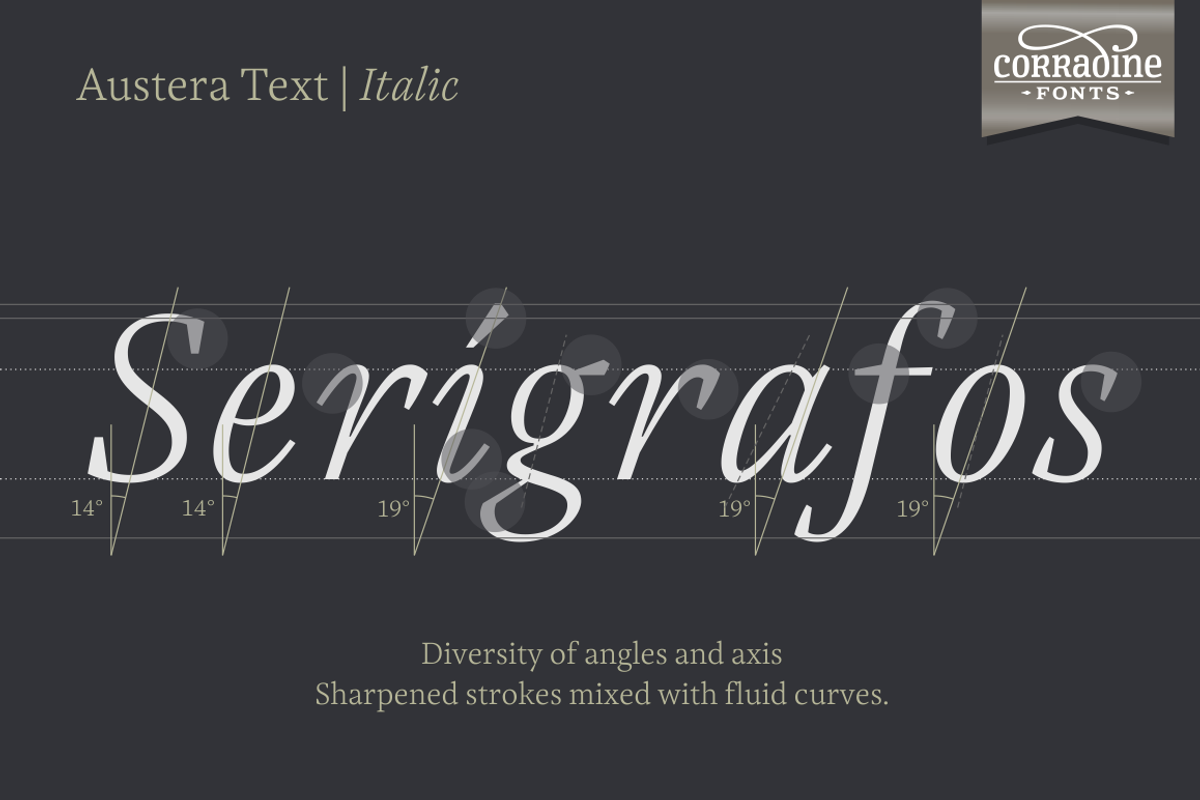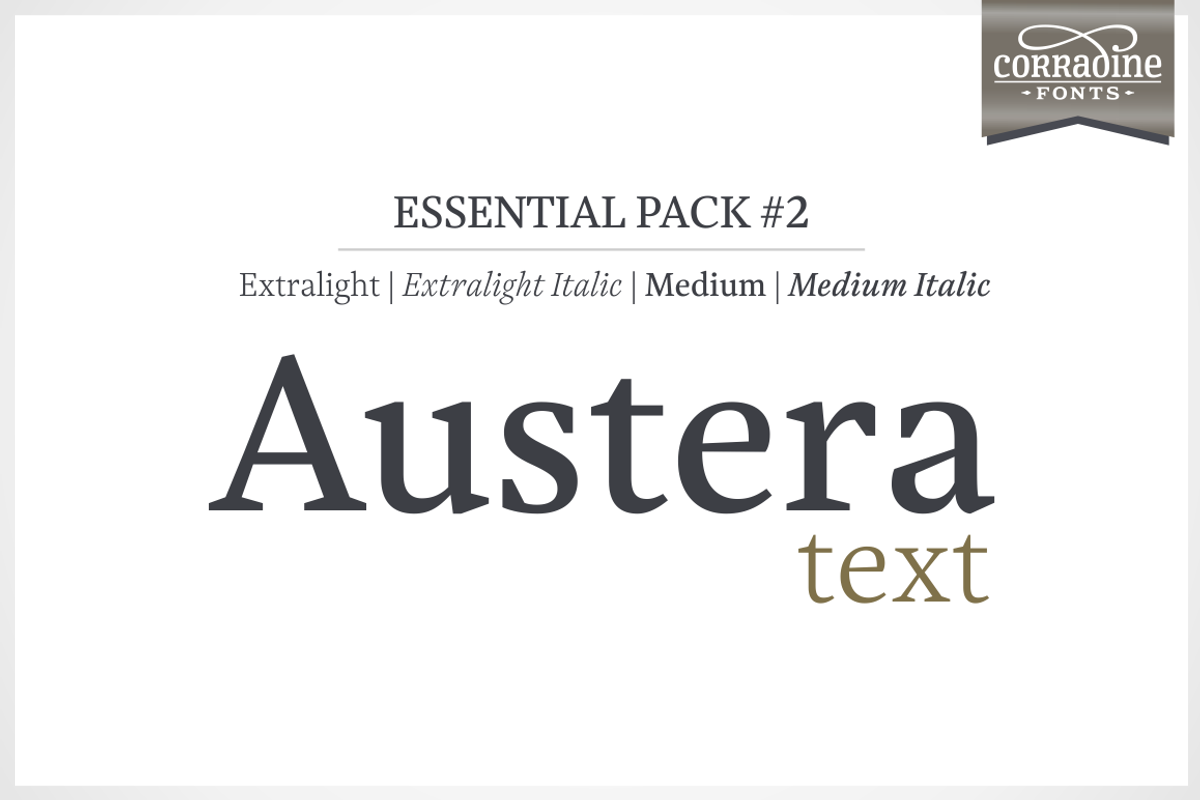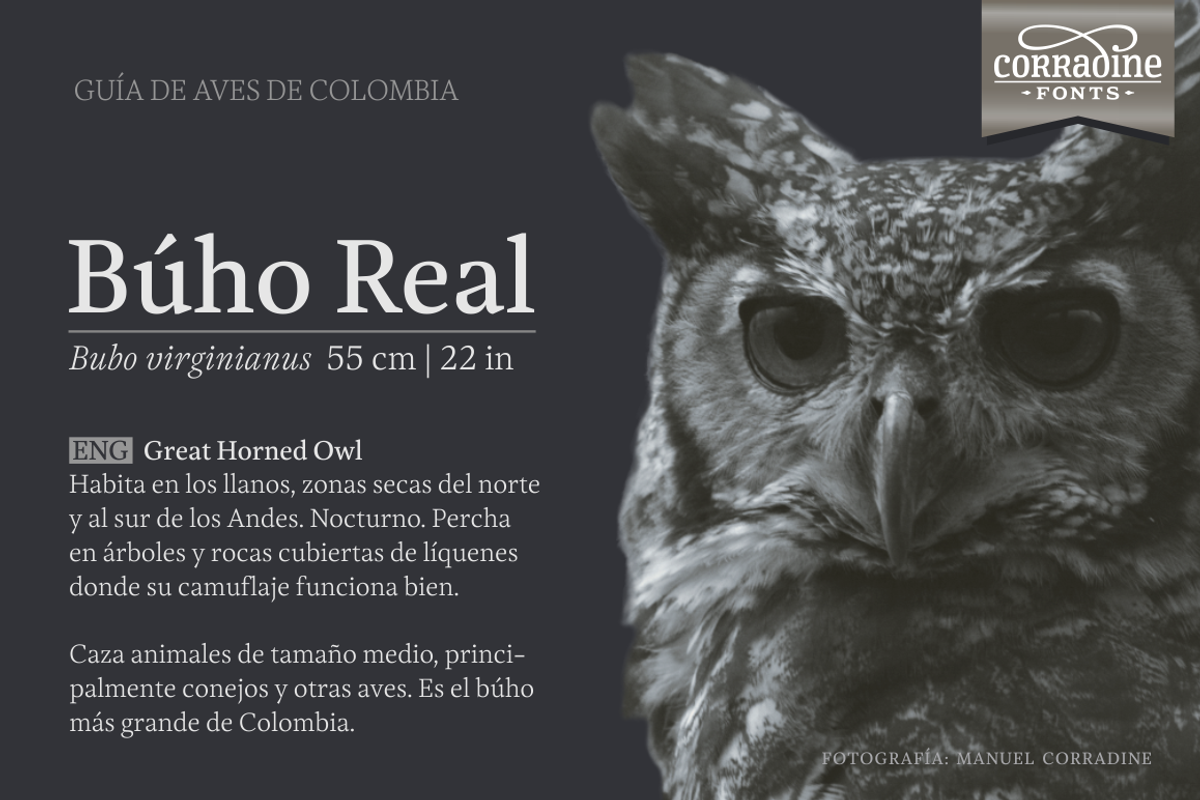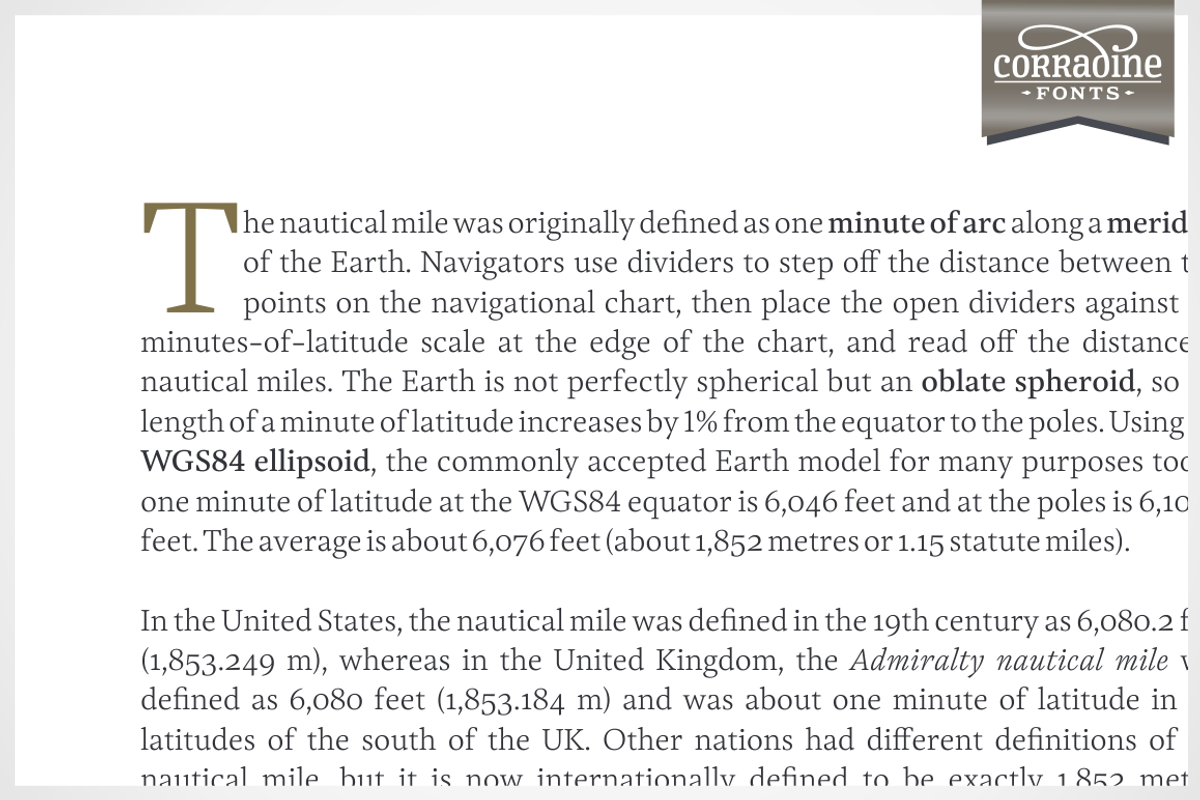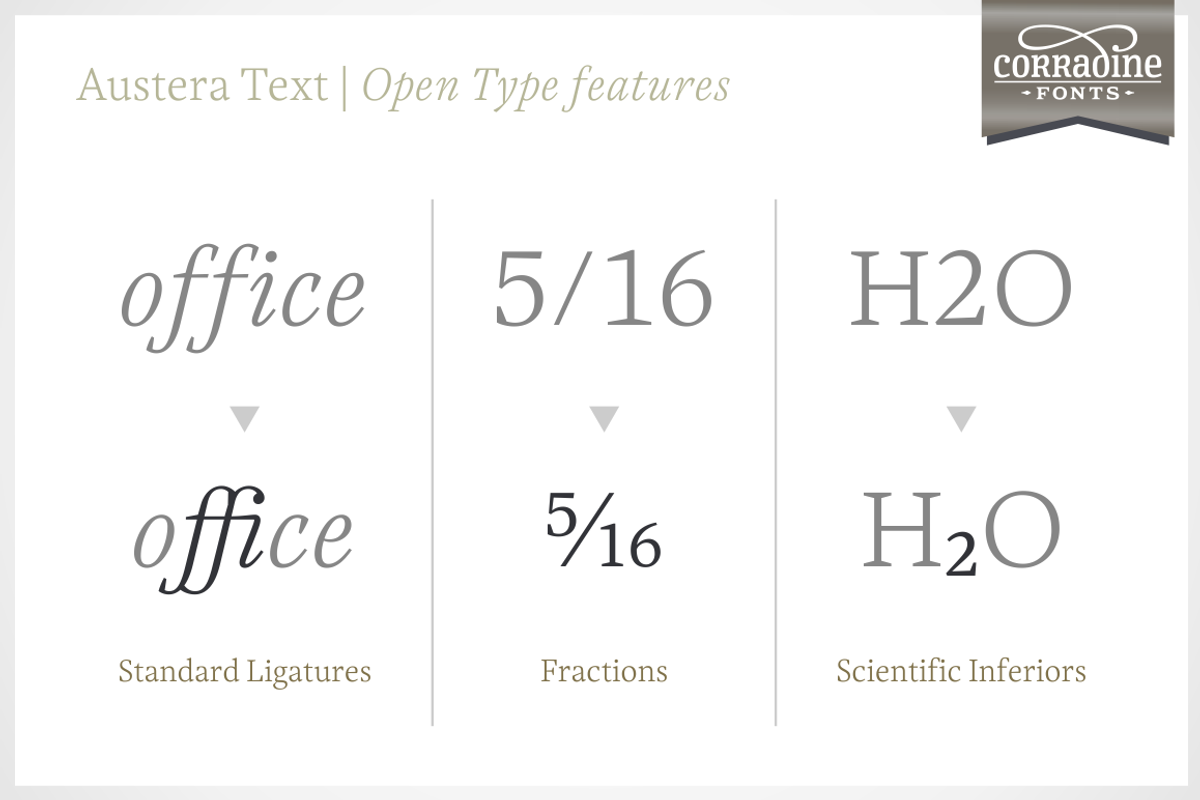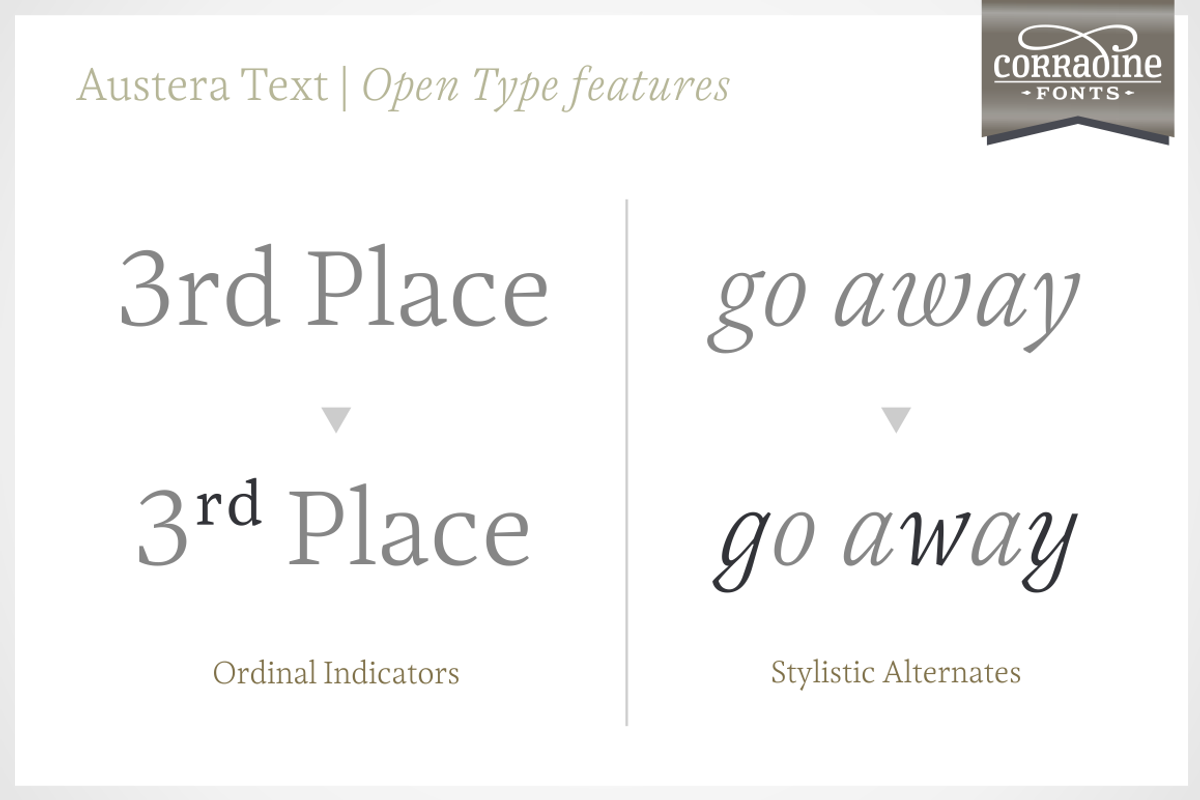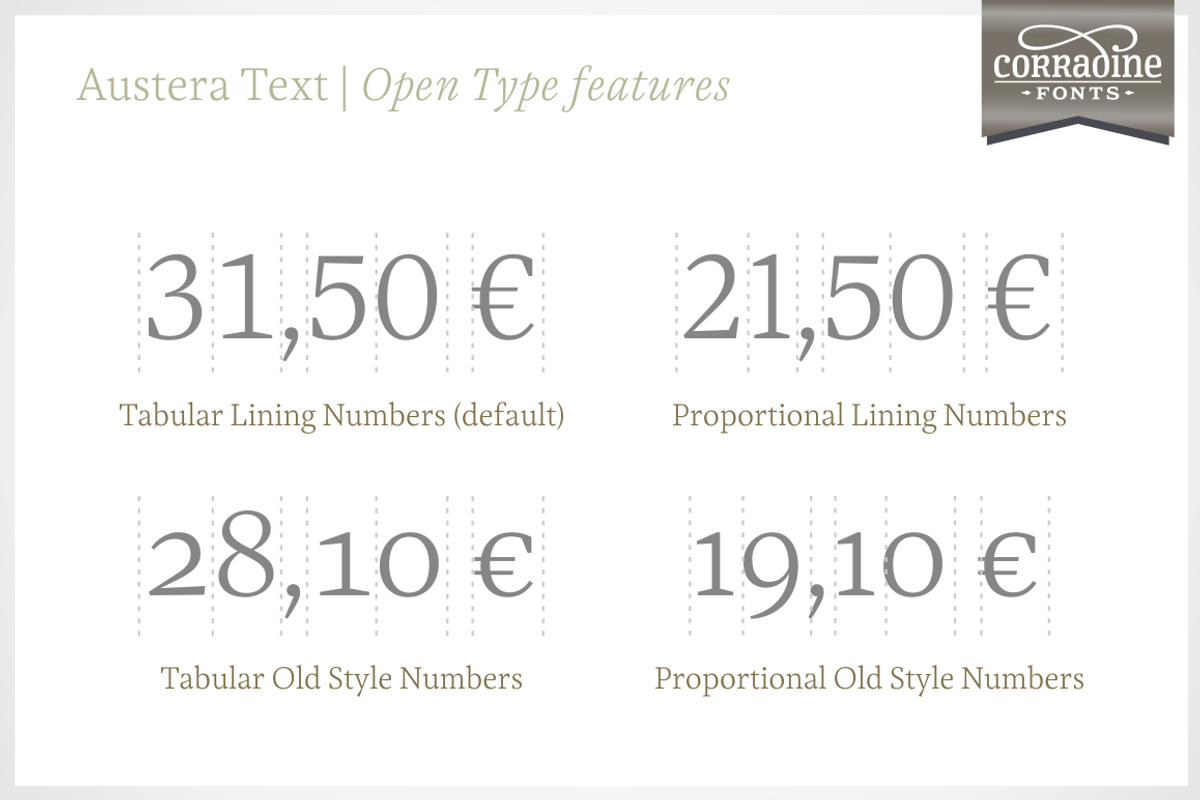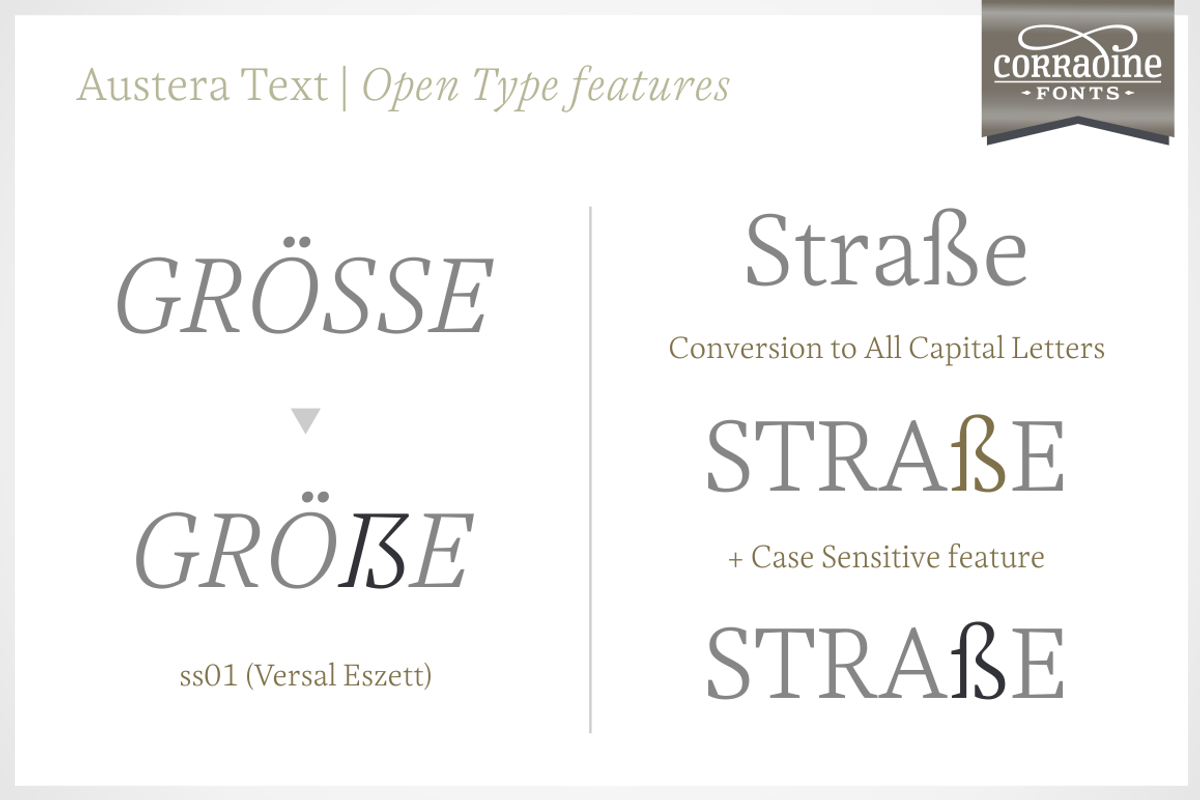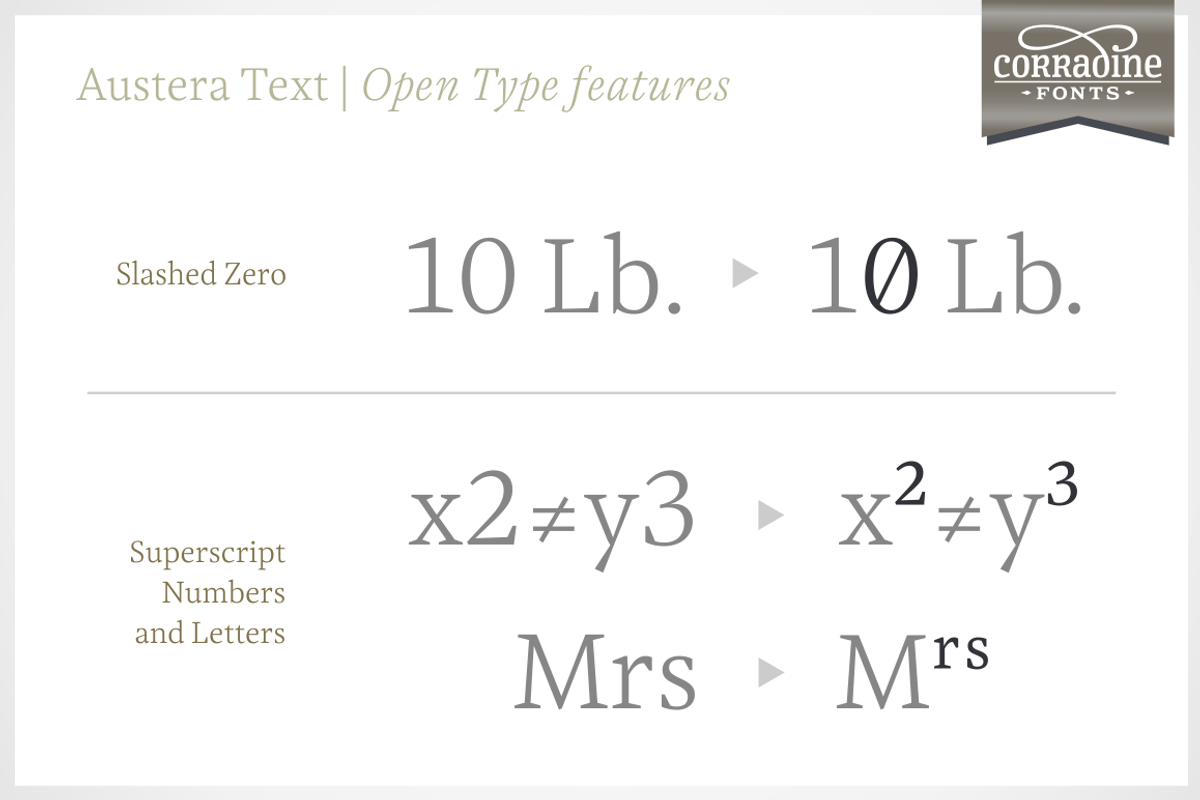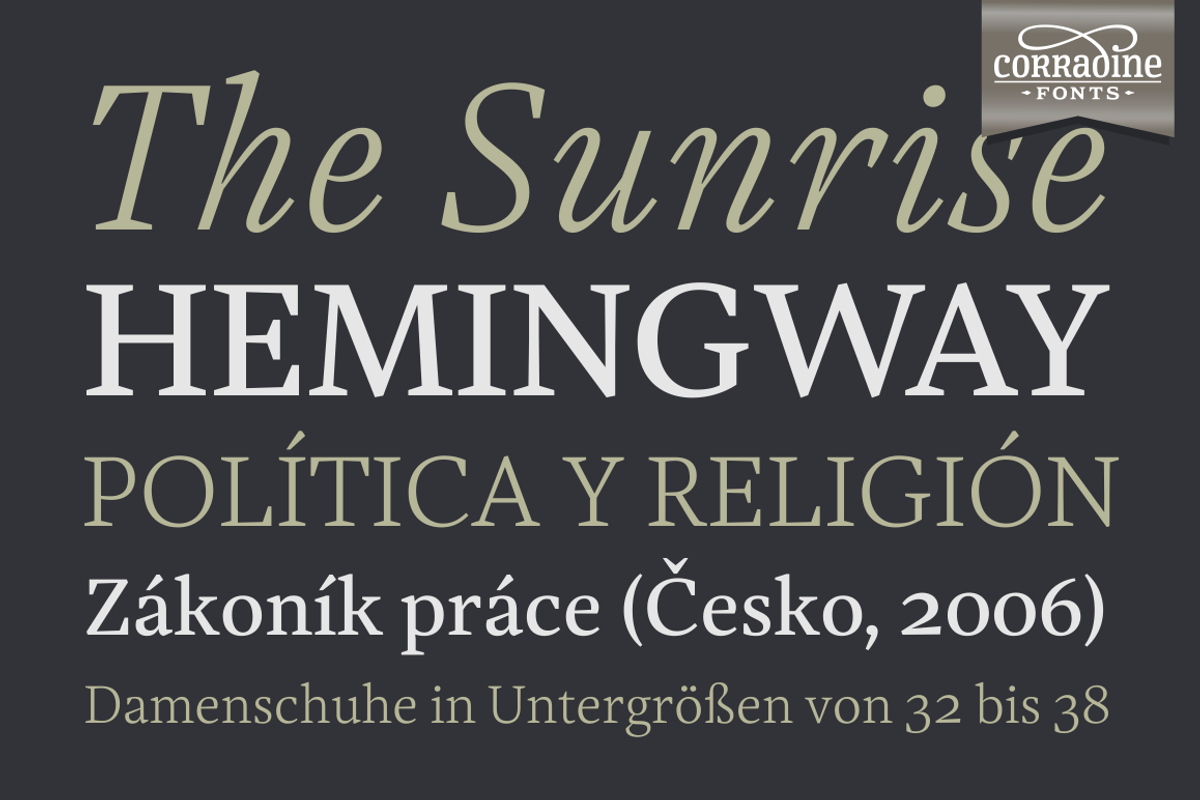
Austera Text Essential #2
Austera Text is a clean and structural humanist font face whose purpose is to be clear while don't interferes with the message concept.
Austera Text is a contemporary serif with moderate contrast, sharp shapes, fairly large x-height and moderate aperture with the aim to make it very legible in continuous text. The italic version has a unique appearance with its pronounced angle mixed whit its elongate beginning and ending strokes.
Despite Austera Text was created to be used in continuous text it also could be applied to many other uses obtaining nice results, from editorial and corporate design to advertising, packaging and digital design.
Austera Text has Open Type features such Old Style figures, standard and discretionary ligatures, ordinals and fractions. Composed of more than 500 glyphs Austera Text supports Western European, Central/Eastern European, Baltic, Turkish and Romanian Languages.